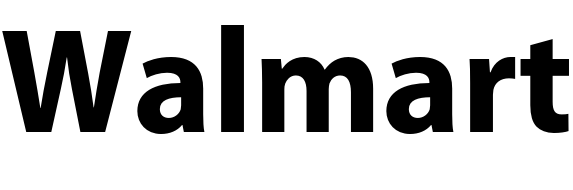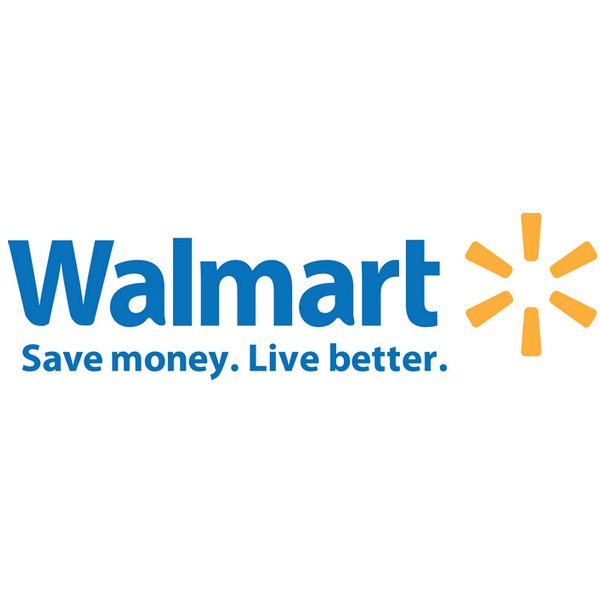
Walmart Font
ElectronicsWalmart is a multinational retail corporation founded in 1962 by Sam Walton. It is currently owned by the Walton family and is known for its low prices and wide range of products, including groceries, clothing, electronics, and more.
Walmart's latest logo, introduced in 2008, includes a non-hyphenated logotype, a sunburst or flower-shaped symbol, and the slogan "Save Money, Live Better." The font used is similar to Myriad Pro-Bold, which is a commercial font that can be purchased and downloaded here.